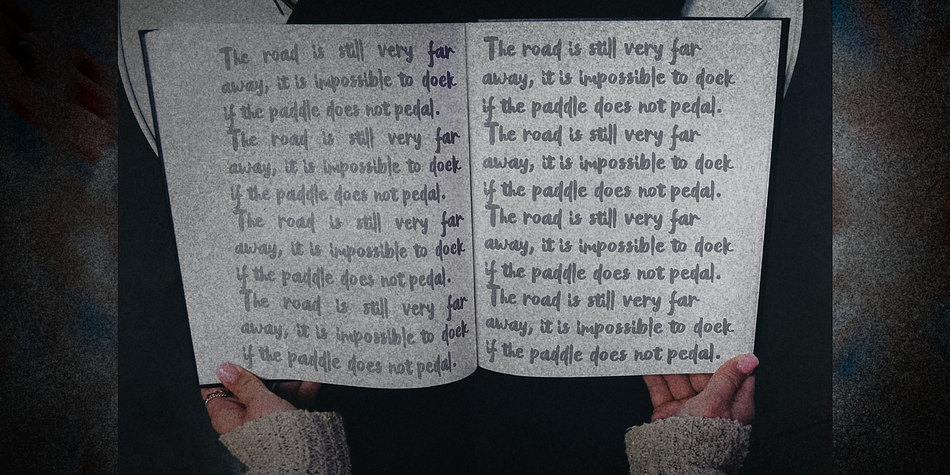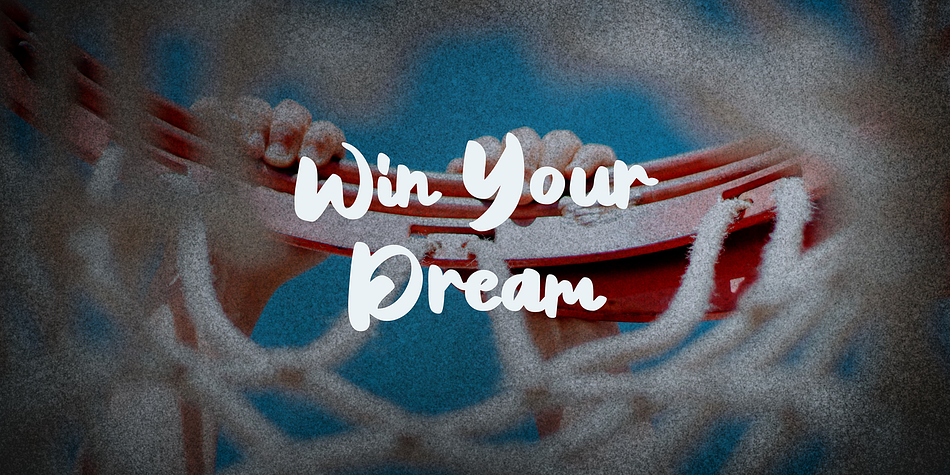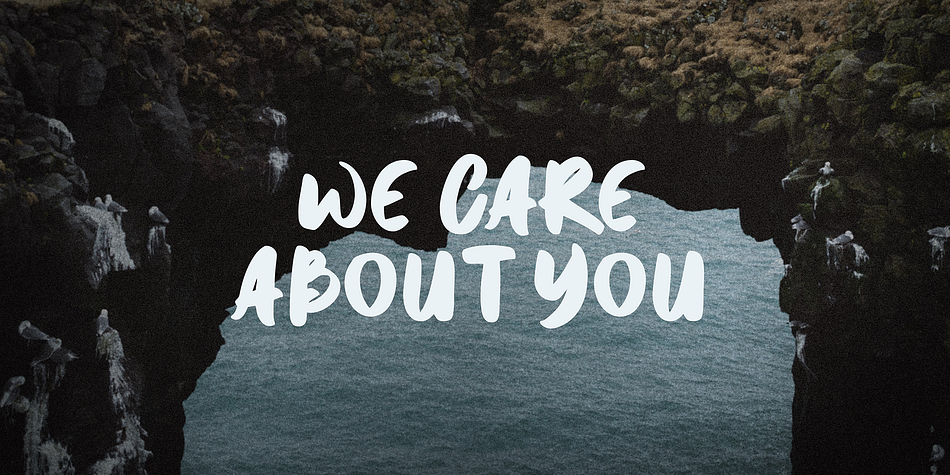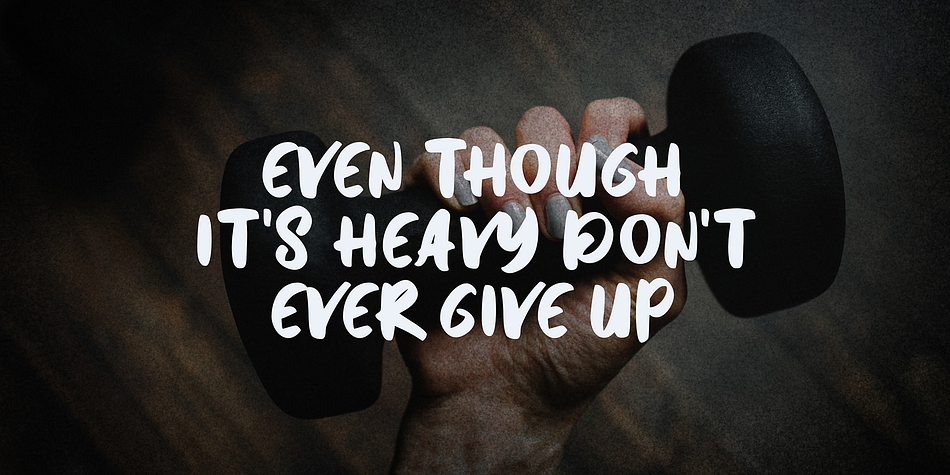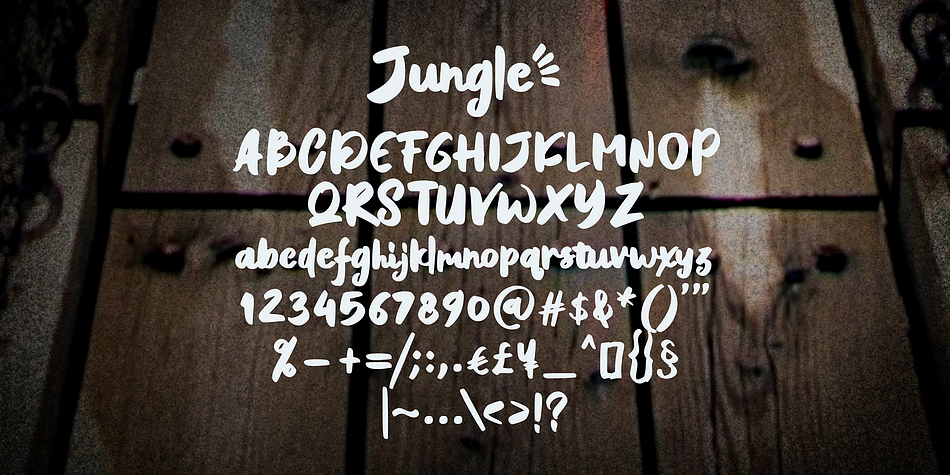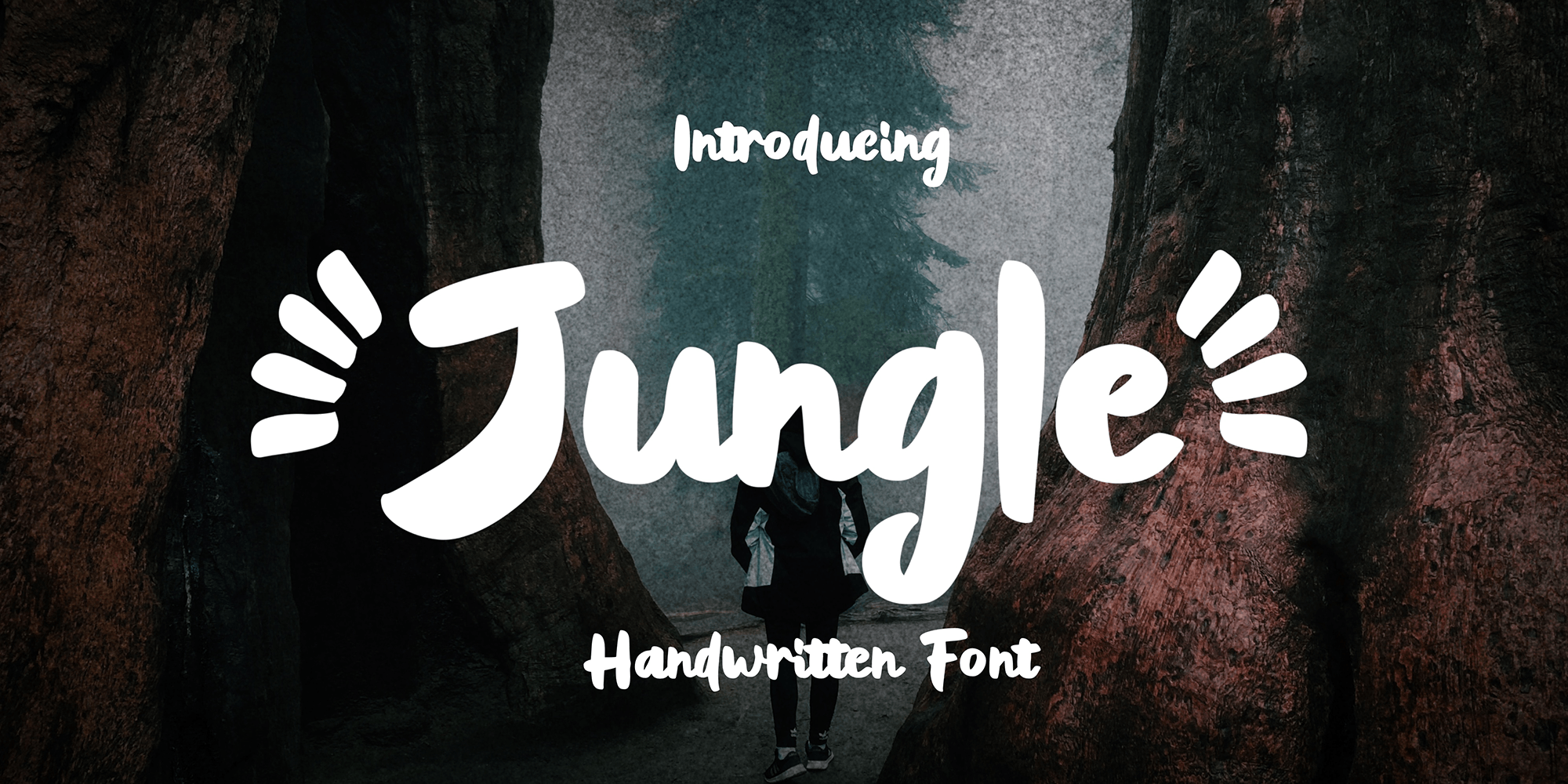
Designed by Rachma BT, Jungle is a brush display, hand drawn and script font published by Bonjour Type.
Give your designs an authentic handmade feel. The Jungle font is perfect for stationery, logos, social media or just using the word background above.